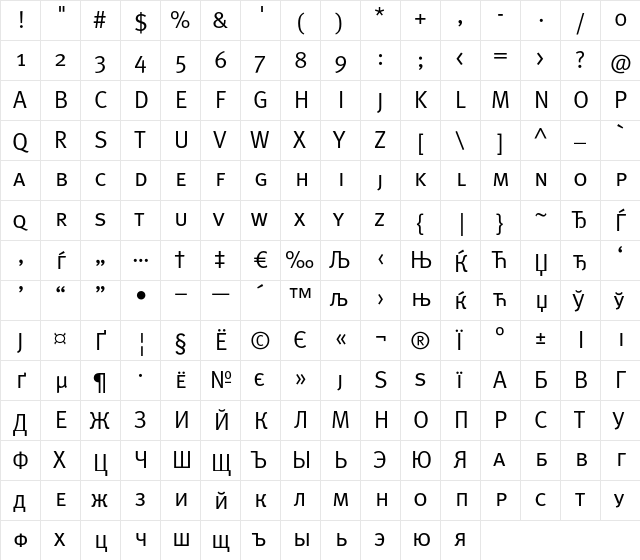
MetaNormalCyr-Caps Regular Font Preview
MetaNormalCyr-Caps Regular
MetaNormalCyr-Caps Regular Font Details
Design Context for MetaNormalCyr-Caps Typeface
MetaNormalCyr-Caps offers clean, dependable letterforms without strong stylistic allegiance, making it a practical choice for designers who need flexibility.